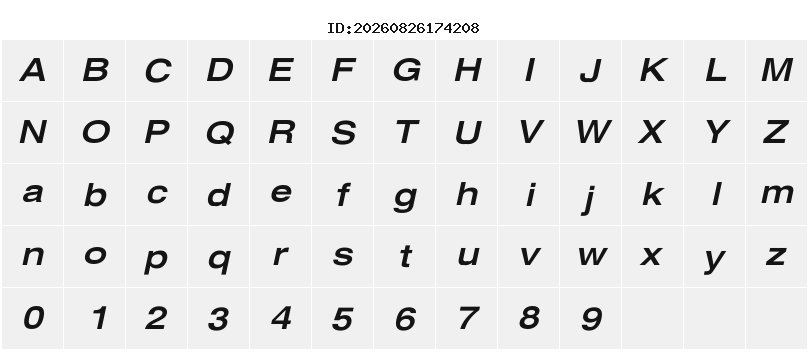
• Font Name: Xerox Sans Serif Wide
• Font Style: Bold Oblique
• Full Font Name: Xerox Sans Serif Wide Bold Oblique
About Xerox Sans Serif Wide.ttf
Xerox Sans Serif Wide.ttf is a modern, elegant sans-serif font designed for ultimate readability and visual harmony. Perfect for branding, headlines, web design, and print materials.